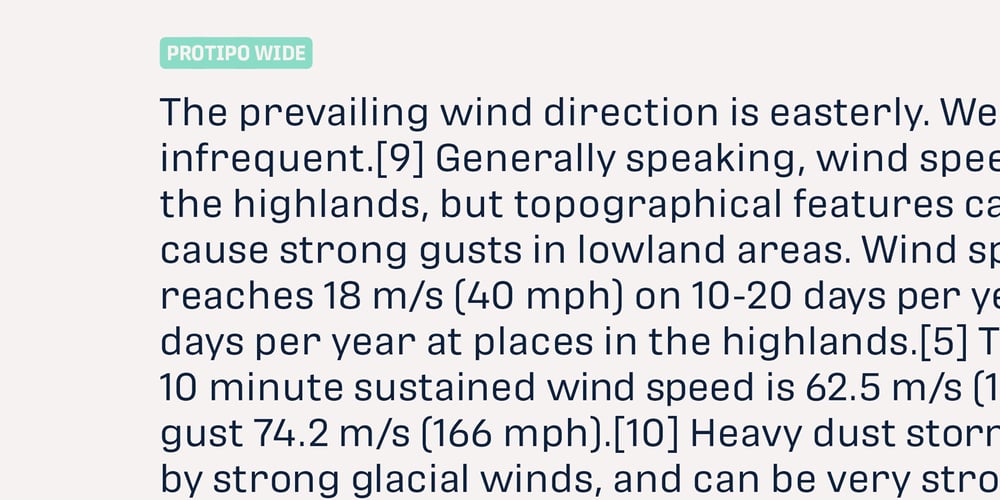
Protipo
Protipo font
Protipo Font Family was designed by Veronika Burian, José Scaglione and published by TypeTogether. Protipo contains 52 styles and family package options. Protipo helps information designers work smarter. Veronika Burian and José Scaglione’s Protipo type family is an information designer’s toolbox: a low-contrast sans of three text widths with a separate headline family, accompanied by an impressive two-weight icon set, and working with the advanced variable (VAR) font format. From annual reports and wayfinding to front page infographics and poster use, designers consistently turn to the simplicity and starkness of grotesque sans fonts to get their point across. Protipo is made for such environments. When designing information you may start with the headline, which in the case of this family is called Protipo Compact and comes in eight weights. From Hairline to Black, set it large, overlap it, or let it run off the page. Protipo Compact was made to hit hard and attract attention with a different character set and different proportions than the three text fonts. It sets the stage for what’s to come. Great information designers are aces at melding form and function, so we’ve stacked the Protipo family with Narrow, Regular, and Wide versions as a way of organising your information and directing the reader. Each width has seven distinct weights (light to bold) and italics, while maintaining the round-rect shapes of its DNA. Subtle details amplify its place in the typographic universe, like an ‘a’ and ‘e’ that go from solid to supple when italicising, an ‘f’ that gains an italic descender, two versions of the lowercase ‘r’ and ‘l’, and clipped corners on diagonals to keep the tight fit inherent to this kind of design work. Protipo is not meant to be loudmouthed, but stakes its claim through refinement, breadth, and impact. Some changes at first don’t seem substantial, but the Protipo family doesn’t handle text like most in its category. Protipo helps readers find and process data in a clear and unequivocal way and accounts for the complexity involved in rendering large amounts of information while still appealing to aesthetics. Protipo is ideal in all informative situations: apps, infographics, UI, wayfinding, transport, posters, display, and even internet memes. Add to all this the icon sets and upcoming variable font capability, and you’re assured a level of creativity, productivity, and impact on a much greater scale.